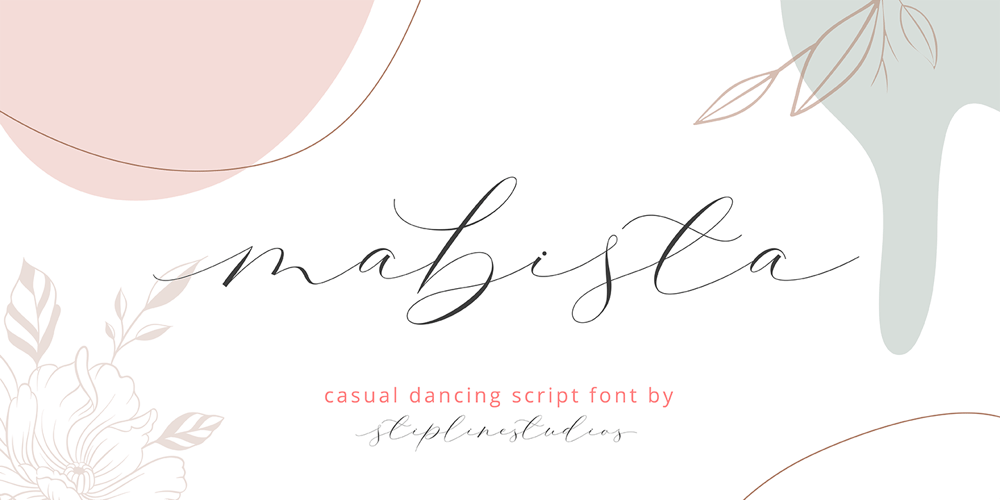
Mabista Script Font Family was designed by T. Marjan Bahraini and published by stiplinestudios. Mabista Script contains 1 styles and family package options. Introducing a dancing calligraphy font, Mabista Script!Simple way to access is just type a number (1-7) after the letters. example : m3ab5ista2Mabista Script is perfect for wedding stationery, invitations, lovey cards, logos, bussiness cards, branding and other projects that require a touch of casual and feminine. This font was created with multilingual support and over 484 glyph characters, allowing you to create a fresh look to your projects.